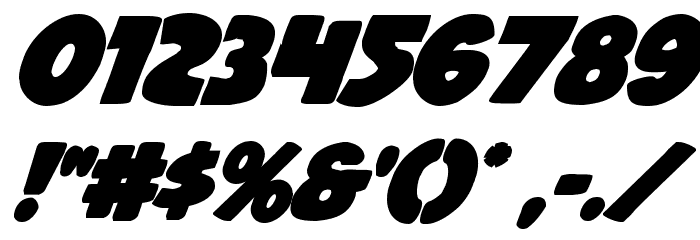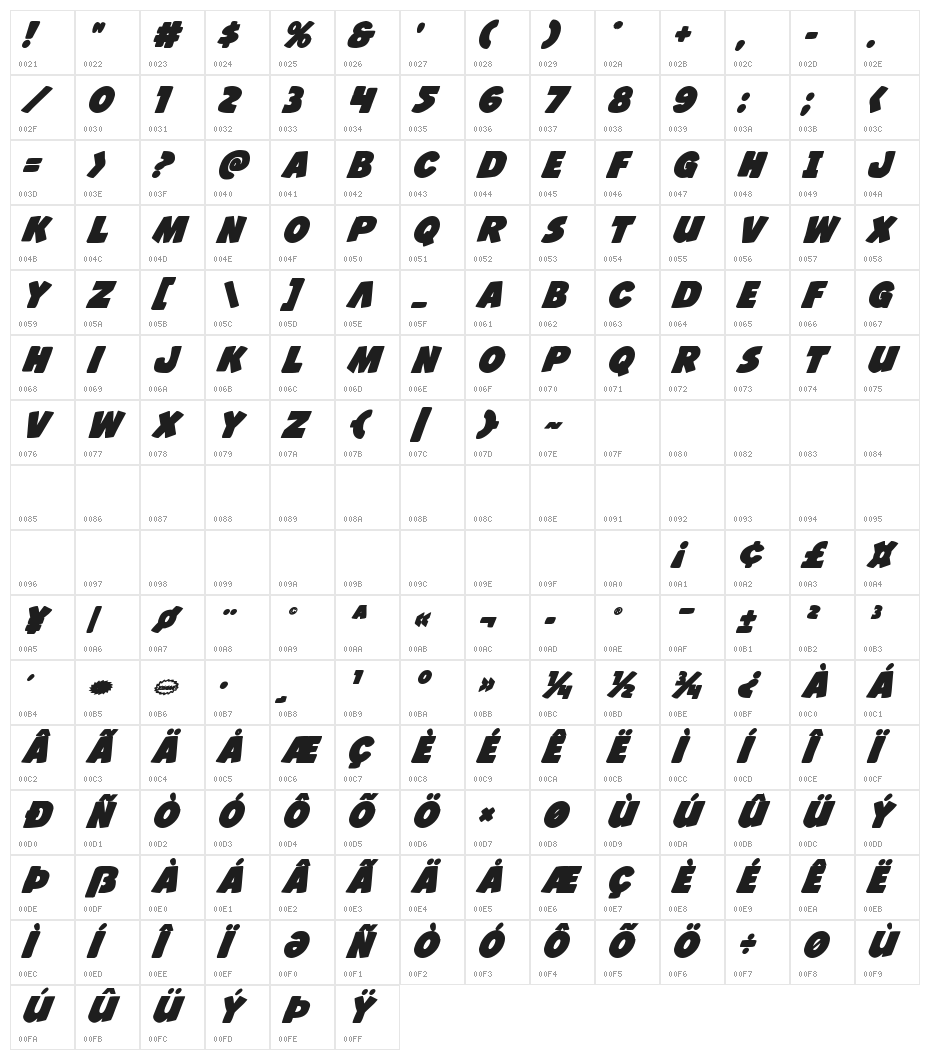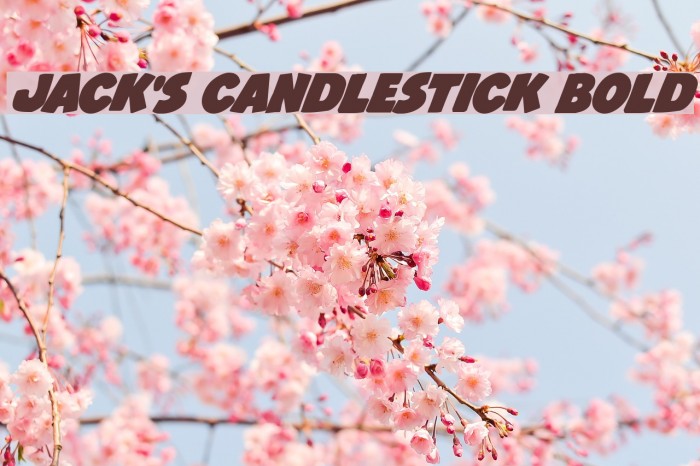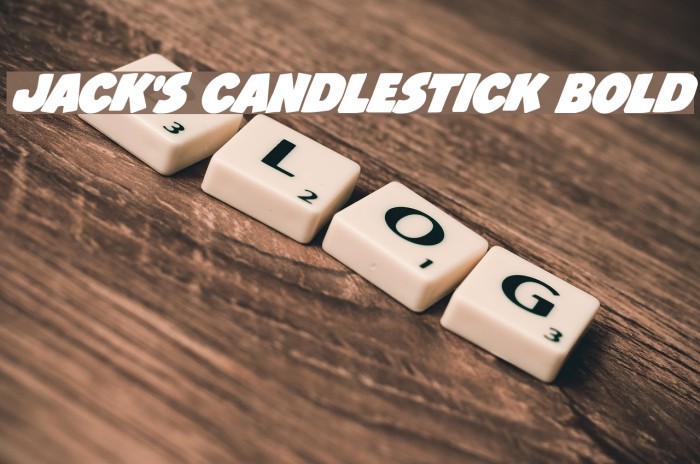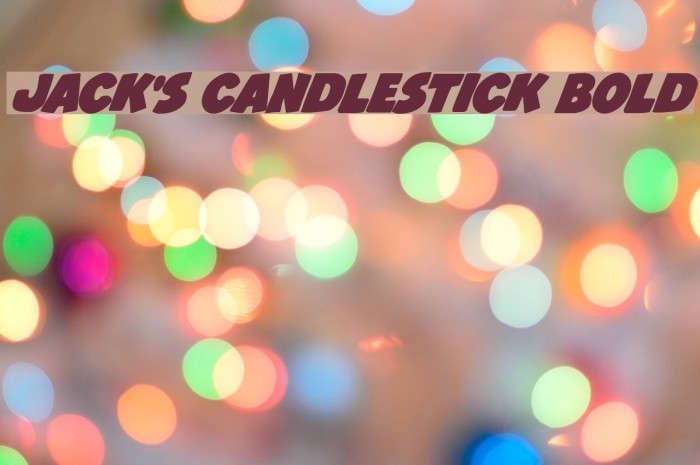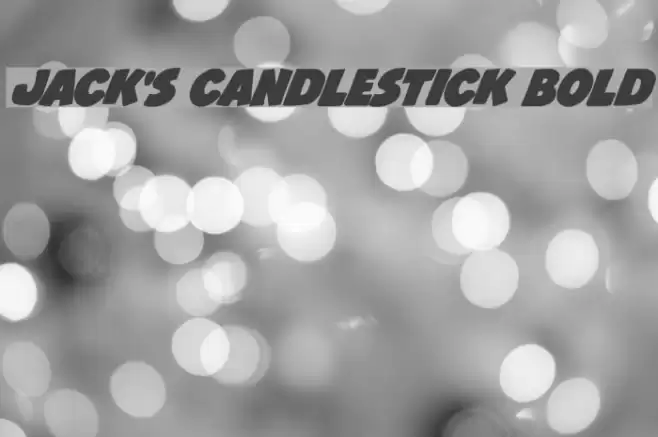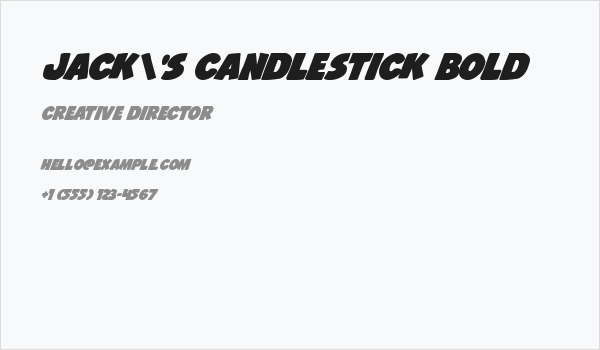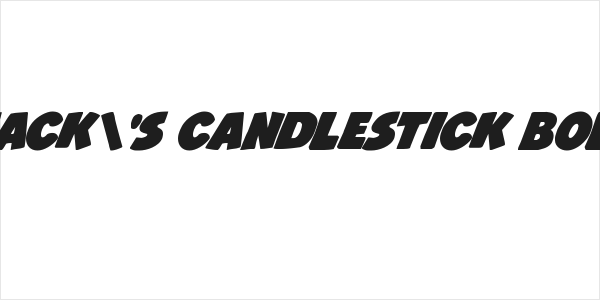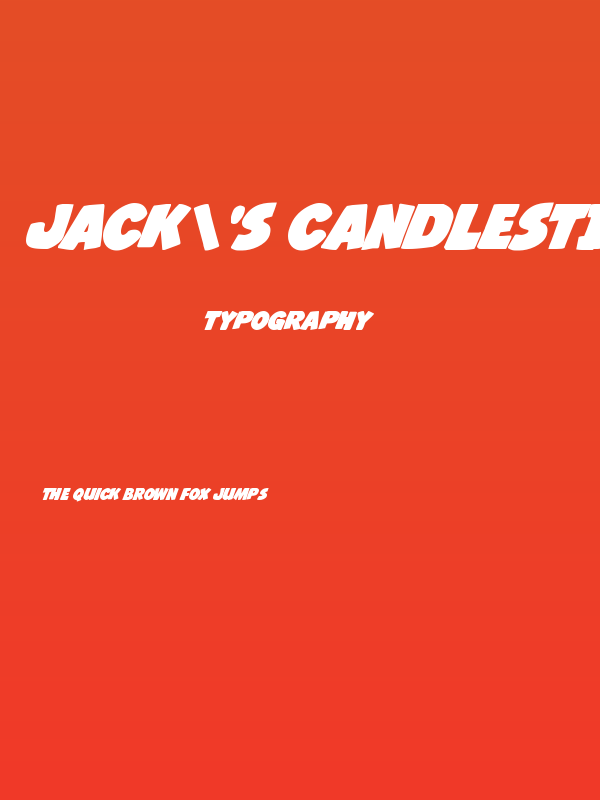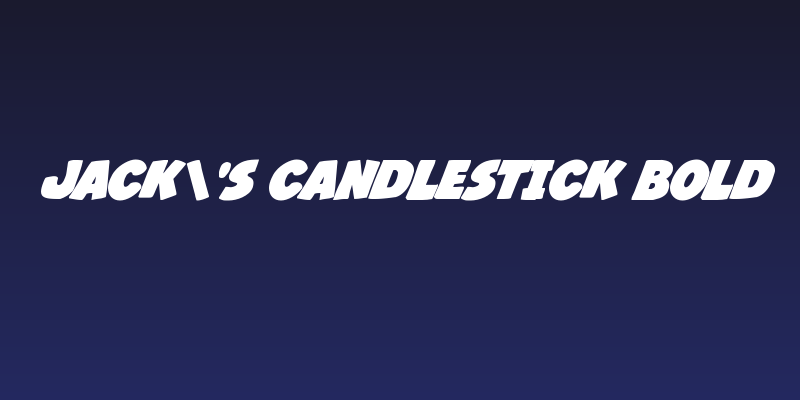
Jack's Candlestick Bold Font
Jack's Candlestick Bold Description
This bold and dynamic font features thick, rounded strokes that convey a sense of strength and playfulness. The characters are slightly slanted, adding a sense of motion and energy. Each letter is robust and impactful, making it ideal for grabbing attention. The numbers and special characters maintain the same bold style, ensuring consistency across all uses. The font's design is both modern and slightly retro, reminiscent of styles from the mid-20th century, yet it remains fresh and contemporary. Its boldness and unique style make it perfect for projects that require a strong visual presence.
| Proposed Projects | Ideal for posters, headlines, branding, and any design needing a strong visual impact. |